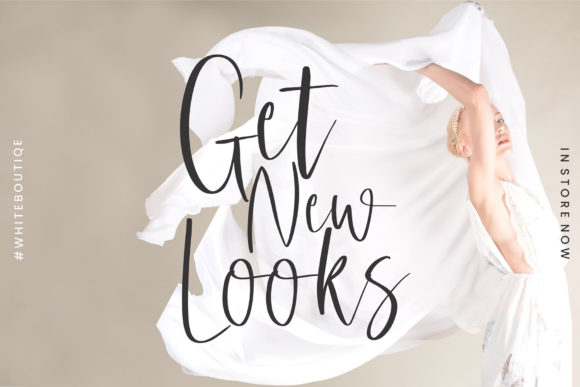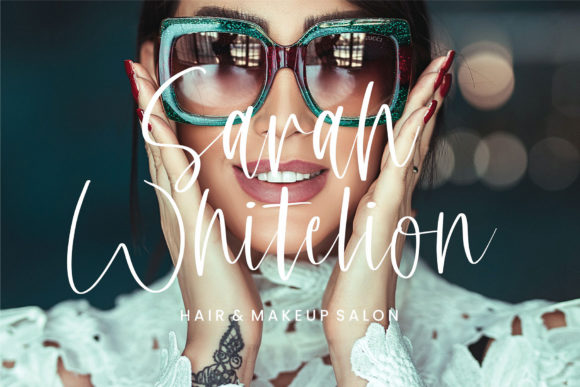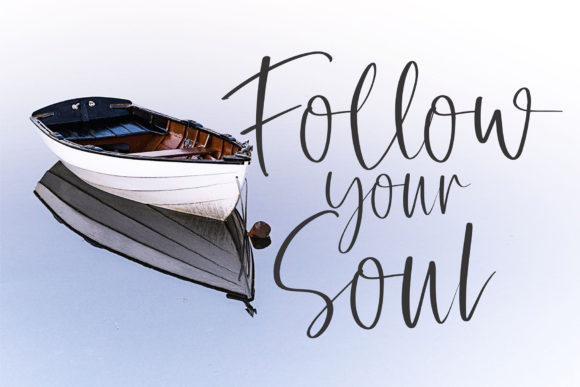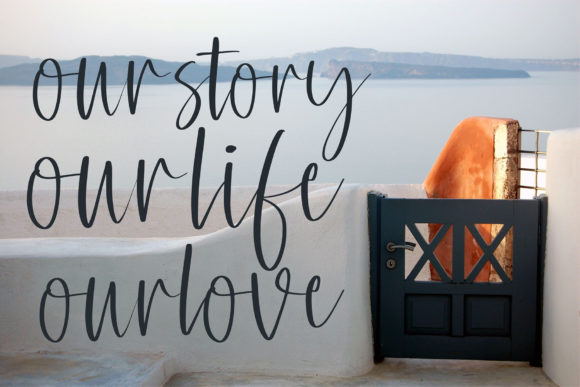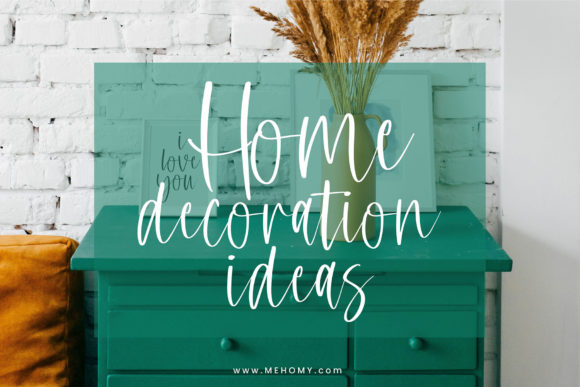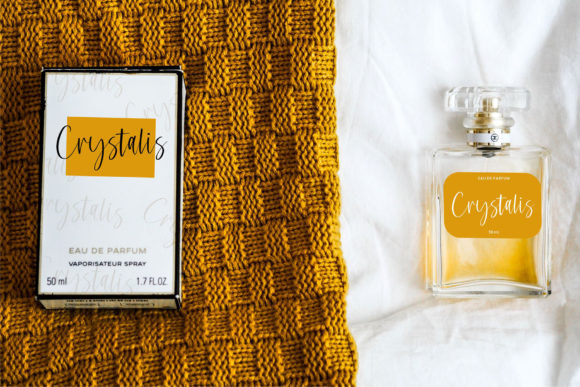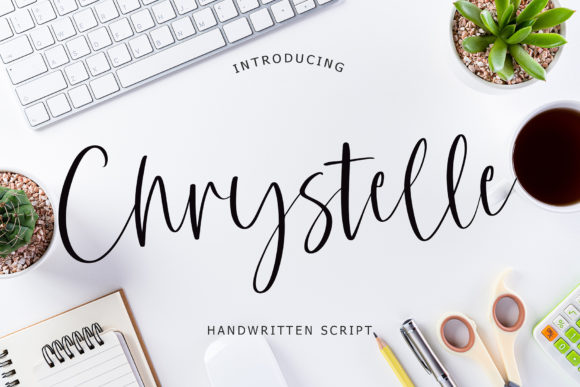
Introducing Chrystelle Font: Elevate Your Designs with Elegance
Are you a designer or crafter looking for a font that exudes sophistication and refinement? Look no further than Chrystelle, a stunning thin and elegant handwritten font. With Chrystelle, you can create outstanding designs that leave a lasting impression. In this article, we’ll dive into the world of Chrystelle Font, exploring its features, benefits, and uses, as well as provide tips on how to make the most of this beautiful font.
What is Chrystelle Font?
Chrystelle Font is a carefully crafted handwritten font that boasts a slender and refined aesthetic. Its elegant strokes and delicate lines make it perfect for designs that require a touch of sophistication. Whether you’re working on a logo, branding materials, invitations, or any other project that demands a high level of visual appeal, Chrystelle Font is an excellent choice.
Key Features of Chrystelle Font
- Thin and elegant strokes: Chrystelle’s slender lines and curves create a sense of refinement and poise, making it ideal for designs that require a high level of sophistication.
- Handwritten feel: Despite its elegance, Chrystelle still retains a personal, handwritten feel that adds a touch of warmth and personality to your designs.
- Versatile: Chrystelle Font can be used for a wide range of projects, from logos and branding materials to invitations, packaging, and more.
- Easy to read: Chrystelle’s clear and legible design ensures that your message is conveyed with clarity, making it perfect for body text and headings.
Benefits of Using Chrystelle Font
So, why choose Chrystelle Font for your designs? Here are just a few benefits you can expect:
- Stand out from the crowd: Chrystelle’s unique and elegant design helps your projects stand out in a crowded marketplace.
- Convey sophistication and refinement: With Chrystelle, you can create designs that exude luxury, elegance, and refinement, perfect for high-end brands and products.
- Save time and effort: Chrystelle Font is easy to use and works seamlessly with popular design software, saving you time and effort in the design process.
Tips for Using Chrystelle Font
To get the most out of Chrystelle Font, here are a few tips to keep in mind:
- Pair with bold fonts: Combine Chrystelle with bold, contrasting fonts to create visual interest and hierarchy in your designs.
- Experiment with colors: Chrystelle Font looks stunning in a range of colors, from metallic and pastel shades to rich jewel tones.
- Use for headlines and body text: Chrystelle’s legibility and elegance make it perfect for both headlines and body text, allowing you to create cohesive and visually appealing designs.
Who Can Benefit from Chrystelle Font?
Chrystelle Font is perfect for a range of designers and crafters, including:
- Graphic designers: Add a touch of elegance to your branding, logos, and marketing materials.
- Stationery and invitation designers: Create beautiful, high-end invitations, stationery, and greeting cards.
- Crafters and small business owners: Elevate your packaging, labels, and marketing materials with a sophisticated and refined font.
Chrystelle Font is a stunning, thin and elegant handwritten font that can elevate your designs to new heights. With its versatility, legibility, and sophistication, Chrystelle is perfect for a wide range of projects, from logos and branding materials to invitations and packaging. Whether you’re a designer, crafter, or small business owner, Chrystelle Font is an excellent choice for anyone looking to add a touch of elegance and refinement to their designs.